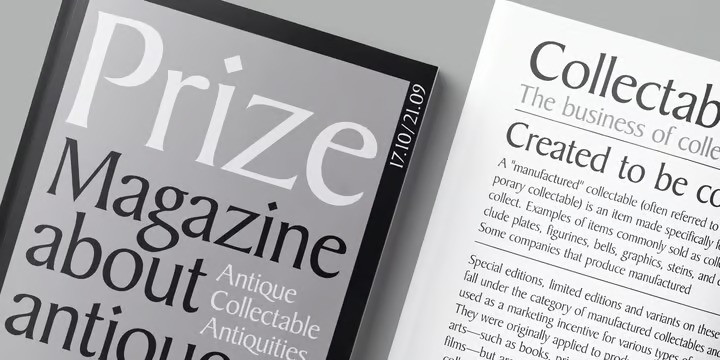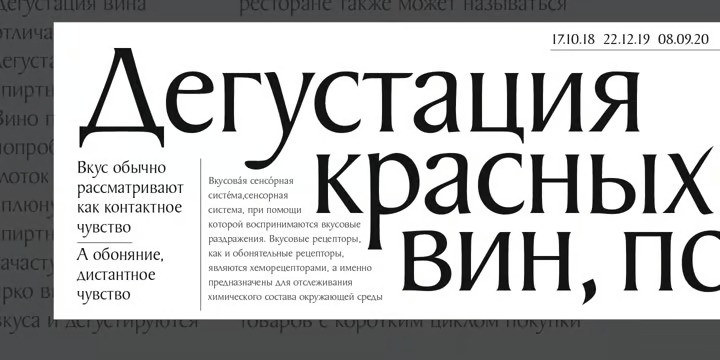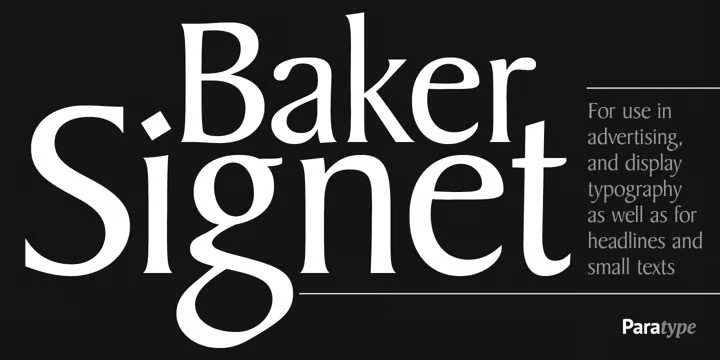
Baker Signet Font
Baker Signet Font Family, Bitsream version of Baker Signet typeface designed by well-known calligrapher Arthur Baker in 1965 for Visual Graphic Corporation (VGC). A design on classical lines with subtle but effective calligraphic touches and flare stroke terminals. For use in advertising and display typography as well as for headlines and small texts. Cyrillic version was developed by Eugene Sadko and released by ParaType in 2008.